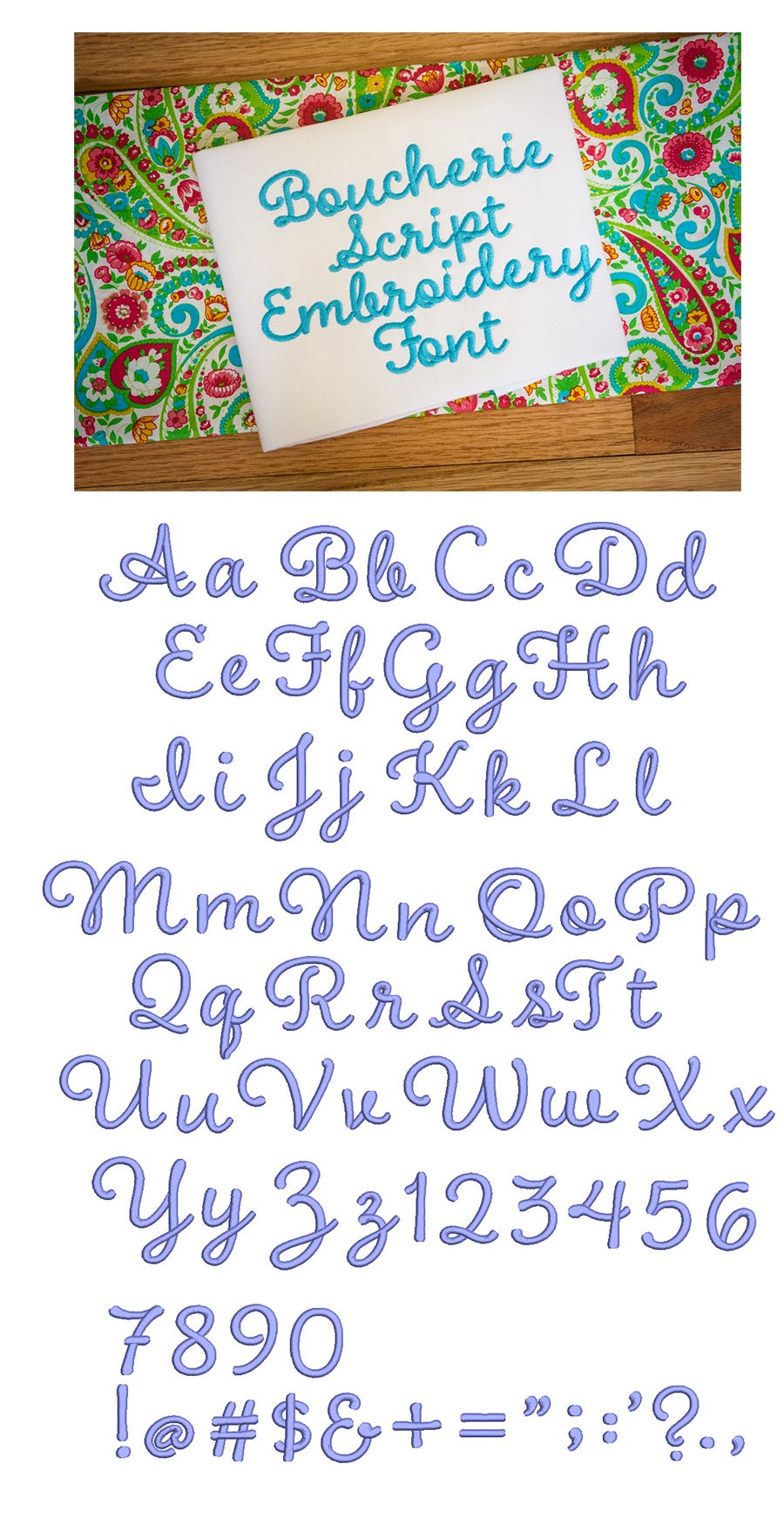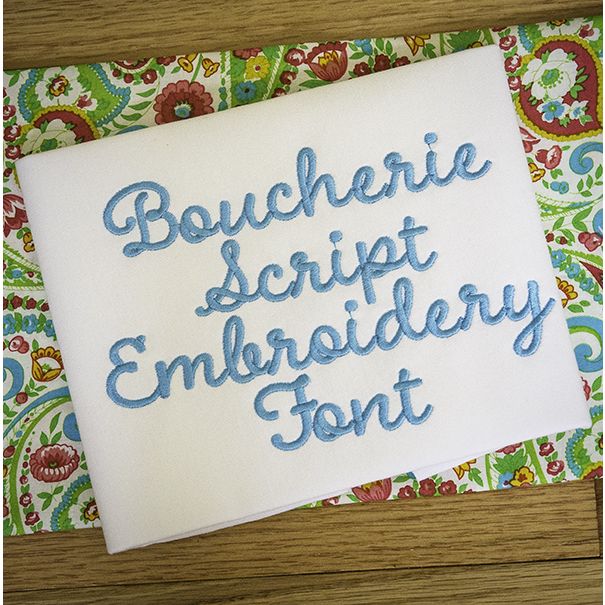
Boucherie Script Satin Stitch Embroidery Font
A beautiful and elegant script! All of our fonts are 100% manually digitized to ensure the highest quality.